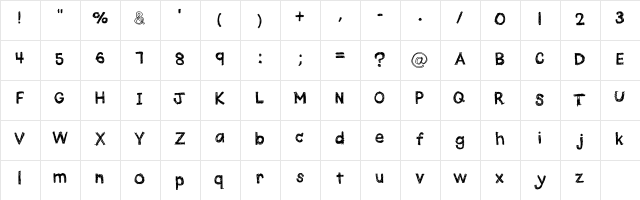
Quick Pencil Regular
| Designer | Marcus Melton |
Design Context for Quick Pencil Typeface
Quick Pencil takes a measured approach to typography — its balanced proportions and neutral character make it a reliable workhorse for both digital and print work.